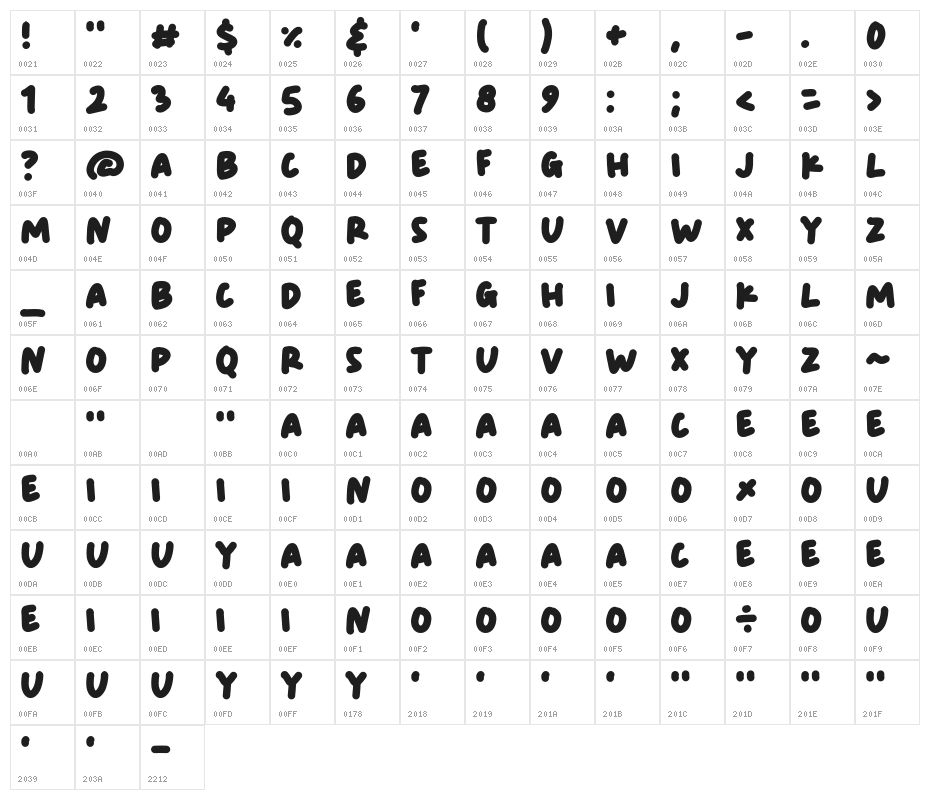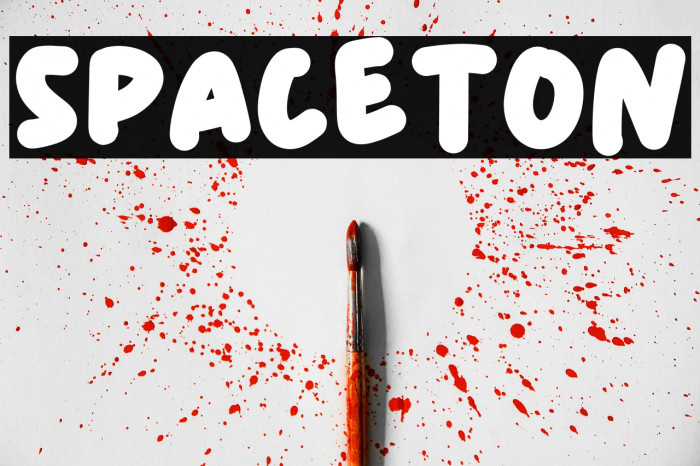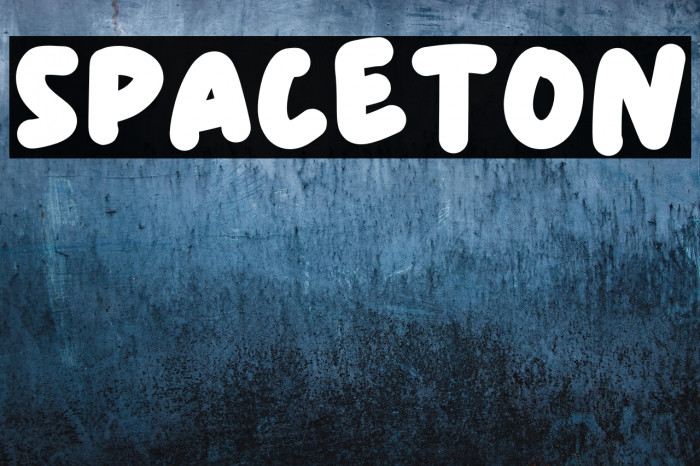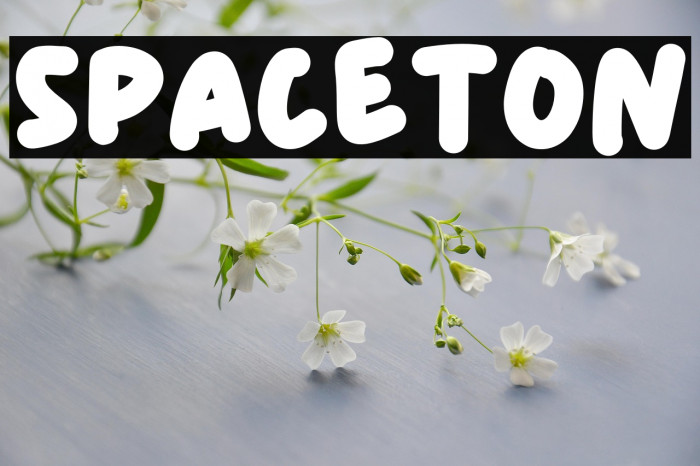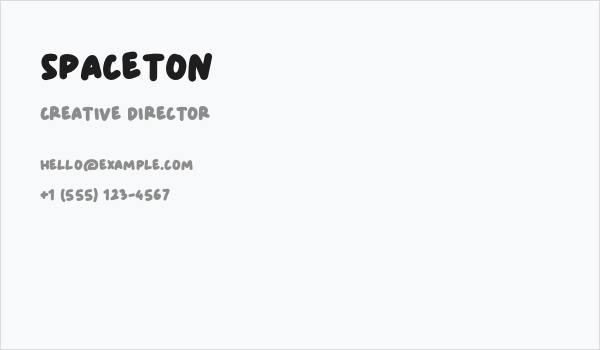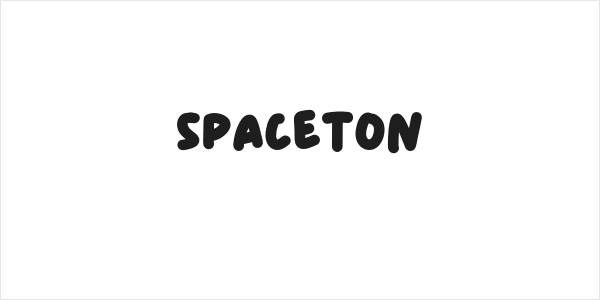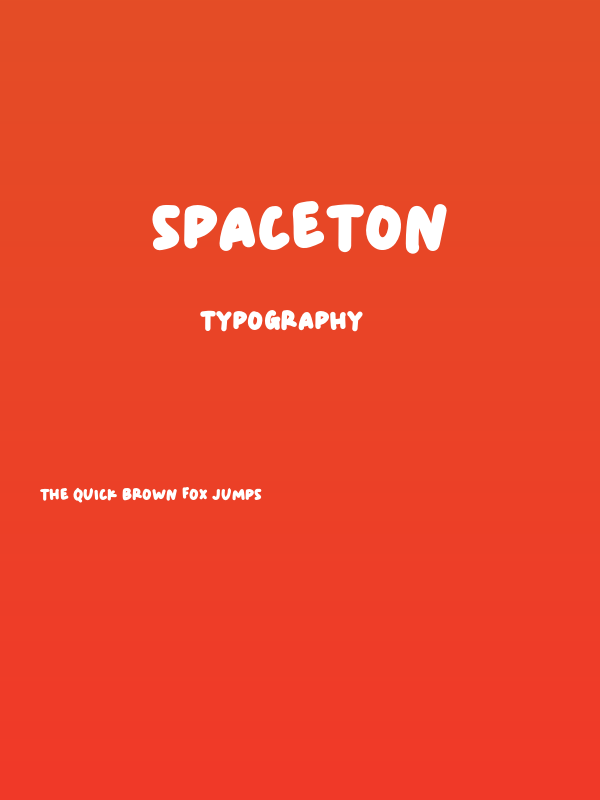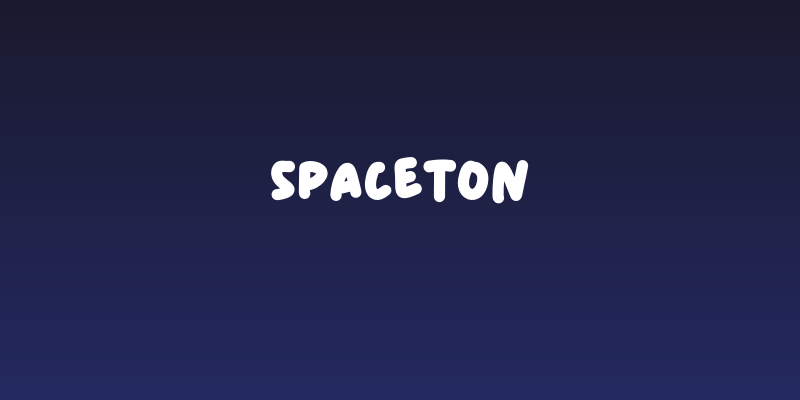
Spaceton Font
Spaceton Description
This font features a bold and playful style with rounded edges and a slightly irregular form, giving it a hand-drawn appearance. The characters are thick and substantial, providing a strong visual impact. The uppercase and lowercase letters maintain a consistent weight, while the numbers and special characters complement the overall design. This font's whimsical nature makes it suitable for projects that require a fun and informal touch.
| Overall Style | Playful, Whimsical |
| Proposed Projects | Ideal for children's books, comic strips, playful branding, and event posters. |